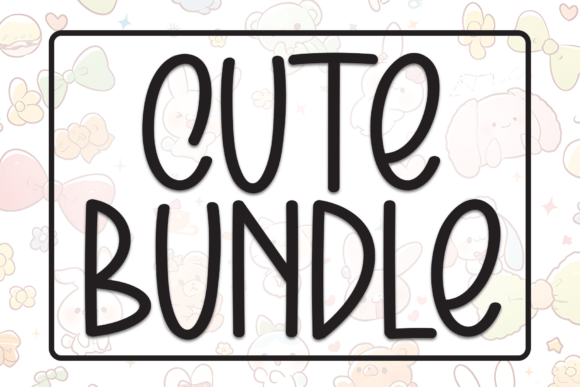
When a Font Speaks Joy in Every Letter
Have you ever stumbled upon a font that makes you smile, and suddenly you’re envisioning an entire brand or design around it? For designers, it’s that elusive ‘aha’ moment – the spark that ignites creativity and sets the tone for a project. For me, it was the discovery of Cute Bundle Font, a playful and bubbly typeface that radiates charm and positivity.
This delightful font is specifically designed for children’s products, kawaii branding, classroom materials, and cheerful designs. Its clean lines, tall, rounded letterforms, and hand-drawn feel make it a perfect choice for projects that require a friendly and approachable style. Whether you’re working on a children’s book, a social media campaign, or a product label, Cute Bundle Font is a valuable asset that can bring a touch of joy and whimsy to your designs.
Cute Bundle Font Key Features
• Font Family: Cute Bundle Font is a collection of 20 fonts, each with its unique style and charm.
• Size: Each font includes multiple weights, from Light to Bold, allowing for a wide range of design possibilities.
• Resolution: Designed at 72 dpi for optimal use in digital design, including web, mobile, and social media applications.
• Unique Characteristics: Features adorable characters, including cute animals, food, and objects, making it perfect for children’s products, food packaging, and other playful designs.
• Character Set: Includes a wide range of characters, including uppercase and lowercase letters, numbers, punctuation marks, and special characters.
Cute Bundle Font Review
Overall, I was quite excited to dive into the Cute Bundle Font, especially considering its cute and playful vibe ✨. The font does a great job of capturing a childlike charm and would be perfect for projects that require a whimsical touch. The font’s rounded edges and soft lines add a friendly feel, making it ideal for graphic design, illustration, and even digital design projects ✨.
One of the things I love about Cute Bundle Font is its versatility. The font comes with a wide range of characters, including uppercase and lowercase letters, numbers, and special characters ✨. This makes it easy to create engaging and visually appealing content without having to switch between multiple fonts.
• ⚠️ The font may not be ideal for formal or professional projects, as it’s quite playful and may come across as unprofessional in certain contexts.
• ⚠️ The font’s cute design may not be suitable for projects that require a serious or dramatic tone.
• ⚠️ The font’s character set is not as extensive as some other fonts on the market, which may limit its use in certain situations.
While Cute Bundle Font has its limitations, it’s still a great addition to any designer’s toolkit. Its cute and playful design makes it perfect for projects that require a whimsical touch, and its versatility is a major plus. If you’re looking for a fun and engaging font to add some personality to your designs, Cute Bundle Font is definitely worth checking out.
Tips for Getting the Most Out of Cute Bundle Font
Here are some tips to get the most out of Cute Bundle Font:
• Use it for titles and headings to add a touch of whimsy to your design.
• Pair it with bold fonts for a playful contrast.
• Experiment with different font sizes and styles to create visual interest.
Cute Bundle Font is perfect for:
• Children’s books and educational materials.
• Party invitations and decorations.
• Food and beverage branding.
Alternatives to Cute Bundle Font
Cute Bundle Font is a popular font style known for its playful, childlike appearance. However, designers often seek alternatives that offer similar characteristics or unique features. Here are a few options to consider:
Great Vibes is a modern, script font that captures a sense of playfulness and elegance. It’s ideal for designing invitations, greeting cards, or any project that requires a touch of sophistication. Compared to Cute Bundle Font, Great Vibes has a more refined look, making it suitable for a wider range of designs.
Q: What is the recommended font size for the Cute Bundle Font?
The recommended font size for the Cute Bundle Font is between 12-24 points, depending on the intended use and design. For body text, we recommend using a font size between 14-18 points. For headings and titles, you can use a larger font size, up to 48 points or more.